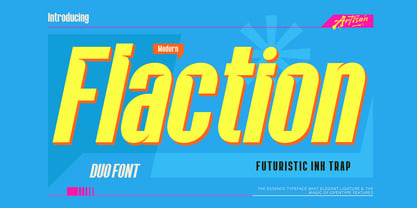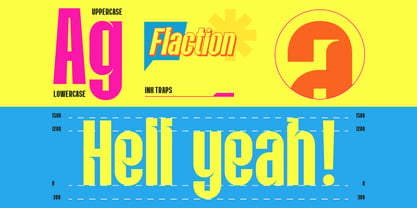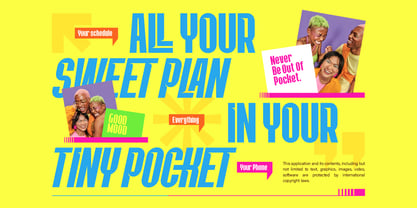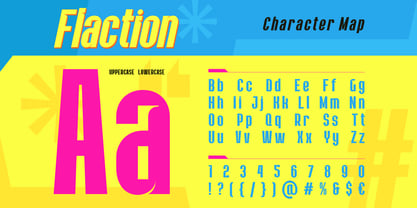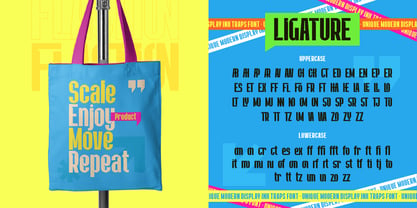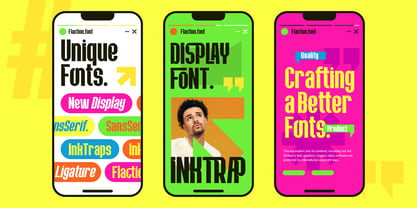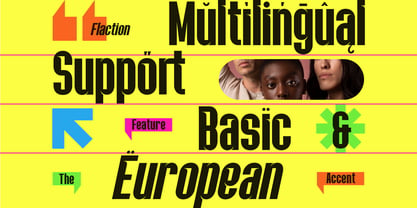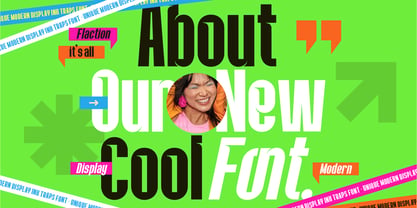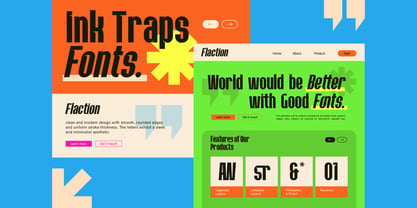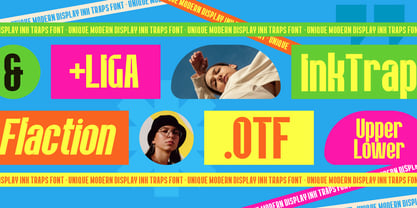
Flaction
The Flaction Font Family was designed by Meidy Meichico and published by Artisan Themes. Flaction contains 2 styles and family package options. More about this family
Step into the future with Flaction, a bold duo font that brings together futuristic ink trap design, sporty energy, and a vibrant youthful vibe. Flaction isn’t just a typeface, it’s a statement.
With its sharp details, strong curves, and dynamic slant style, Flaction was made to stand out in fast paced worlds: from sports branding and youth culture campaigns to modern tech designs that need that sleek, forward-moving energy.
This font speaks the language of today’s generation energetic, playful, and unstoppable. Whether you’re creating digital posters, lifestyle branding, or tech inspired visuals, Flaction gives your design the edge it needs to stay fresh and powerful.
Why Flaction?
• Duo style (Regular & Slant) for extra versatility
• Futuristic ink trap details that feel bold and modern
• Perfect for sports, youth culture, and tech-driven designs
• Eye-catching for logos, posters, and digital campaigns
Bring speed, style, and future-forward energy into your design with Flaction.